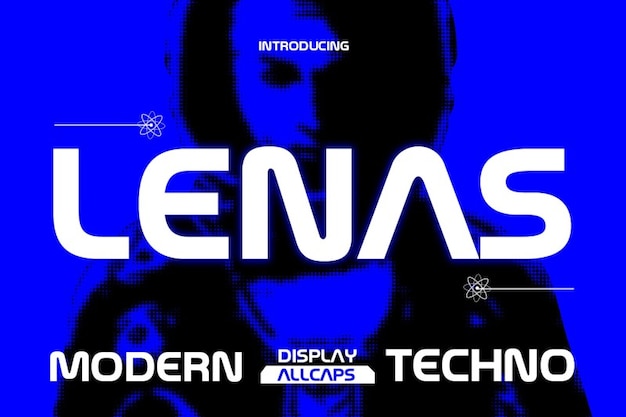
Lenas Font
Lenas, a modern techno font radiating a neon glow, epitomizes futuristic aesthetics. Its sleek lines and luminous vibe make it perfect for digital displays, gaming graphics, and contemporary designs. The neon-inspired essence of Lenas adds an electrifying touch, capturing attention and infusing a dynamic, futuristic spirit into any project seeking a cutting-edge visual language.